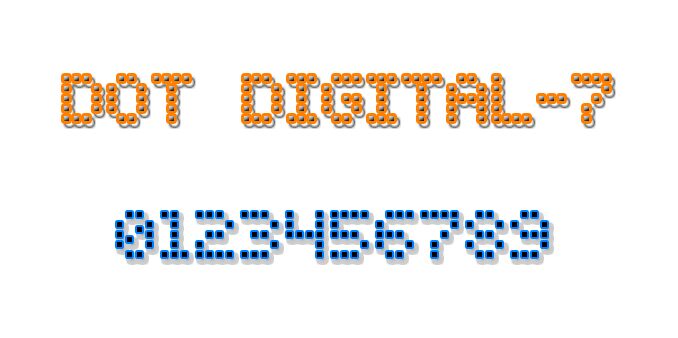
Dot Digital-7 by Style-7 is a free dot-matrix digital display font with broad, mechanical lettering and a deliberately sparse texture. Its square marks create broken contours that recall early electronic signs and low-resolution readouts, with open gaps giving the upright forms an unusually airy look across the line.
Arcade brands and retro-technology products can use it to build a convincing electronic identity. It also fits game interfaces, music posters, and event graphics. Across these settings, the repeated dot pattern can connect lettering to screen icons, circuit motifs, scoreboards, and period hardware imagery used throughout an entire campaign or game world.
Dot Digital-7
Style-7
Sizenko Alexander